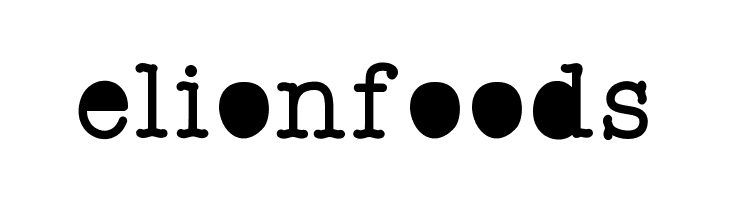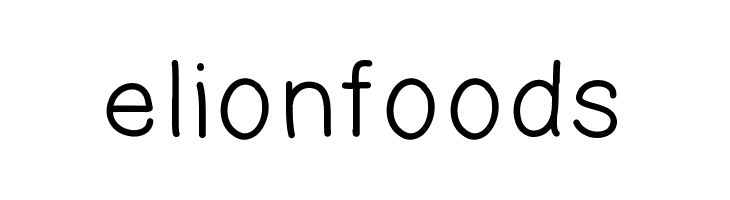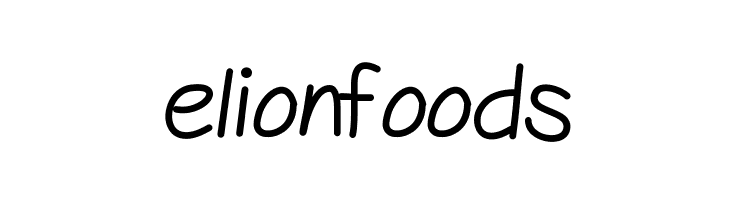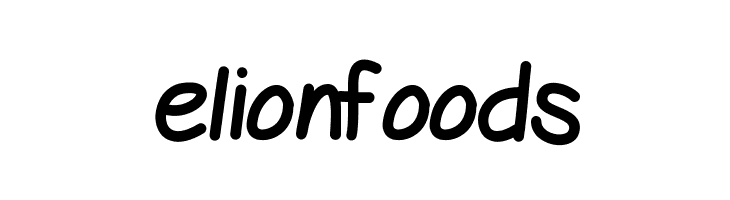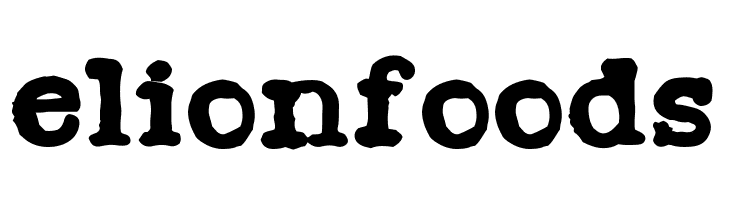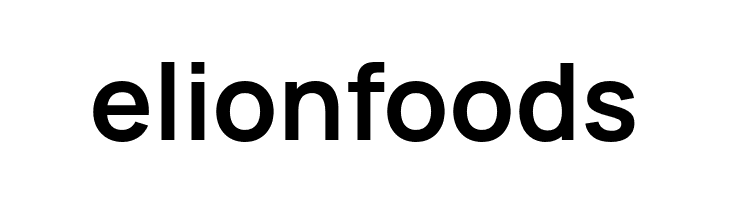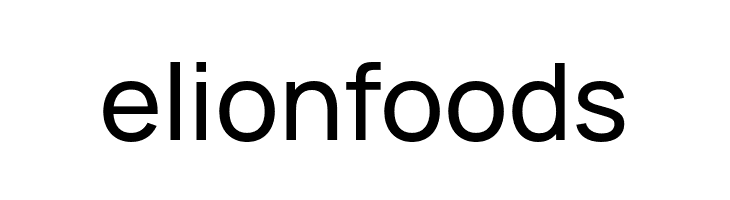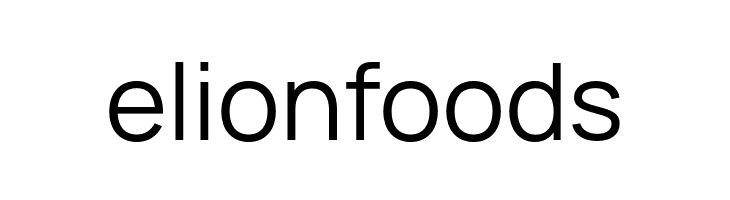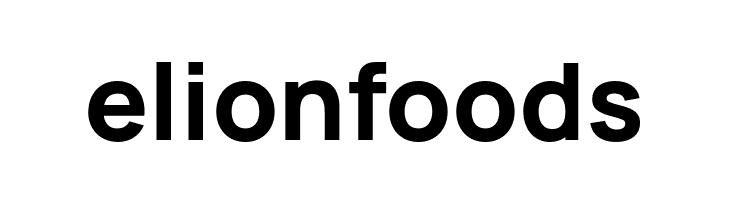
A bold, vintage-inspired serif font with playful, rounded serifs.
A playful handwritten font with rounded, consistent strokes and a casual feel.
A casual, handwritten font with smooth, rounded characters.
A playful, handwritten font with smooth, rounded edges and a casual style.
A bold, distressed font with a vintage typewriter style.
A modern, geometric sans-serif font with clean lines and high legibility.
A modern, sans-serif typeface with a clean and minimalist design.
A modern, geometric sans-serif font with a clean and professional appearance.
A modern, geometric sans-serif typeface with uniform stroke widths.
A modern, geometric sans-serif typeface with balanced strokes and clear legibility.